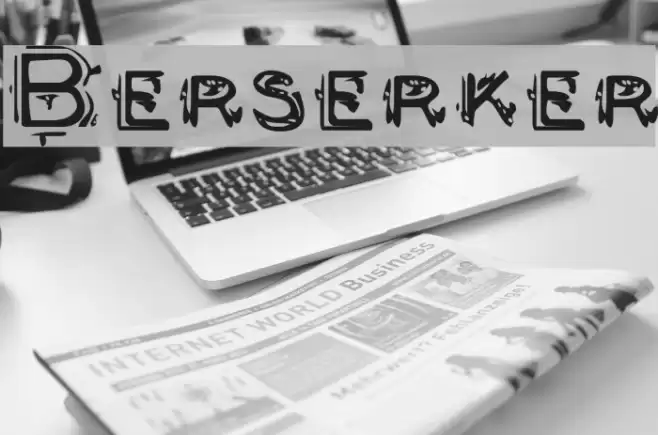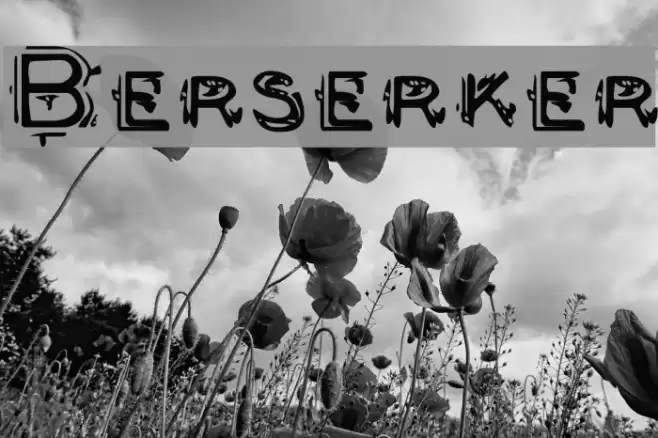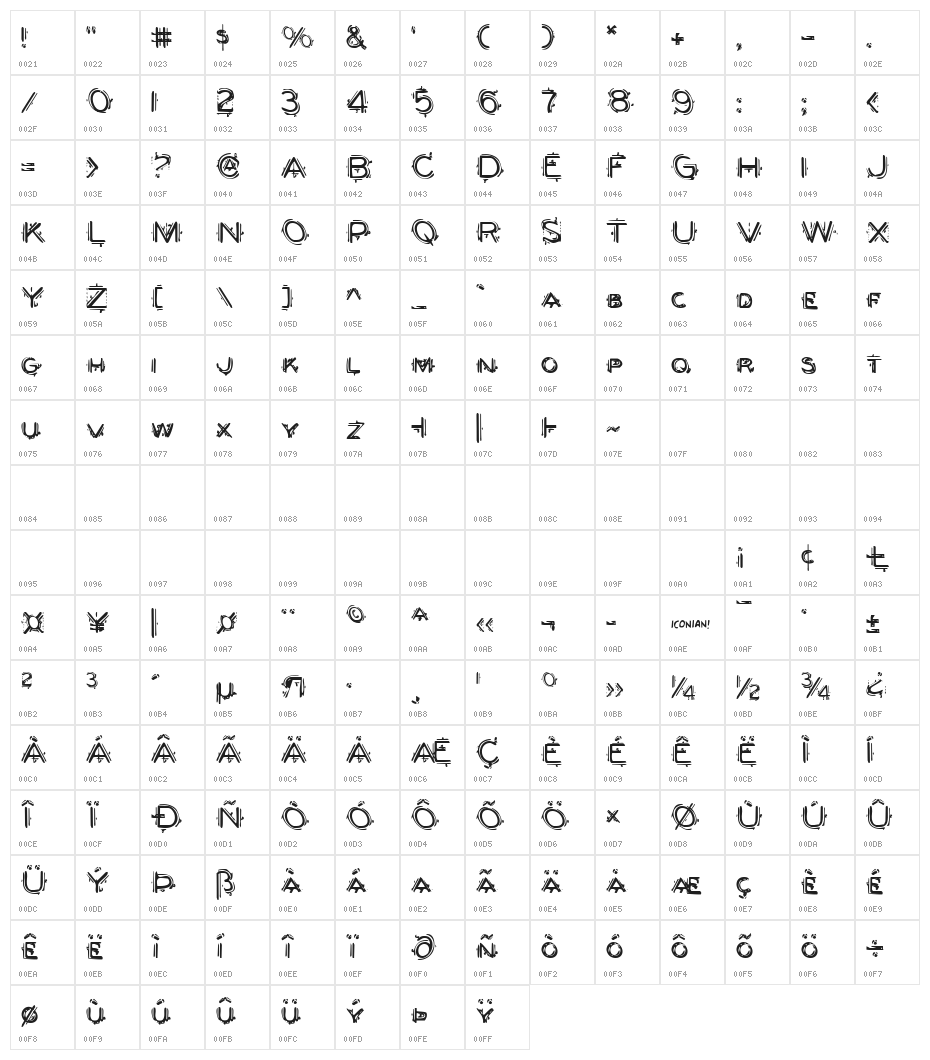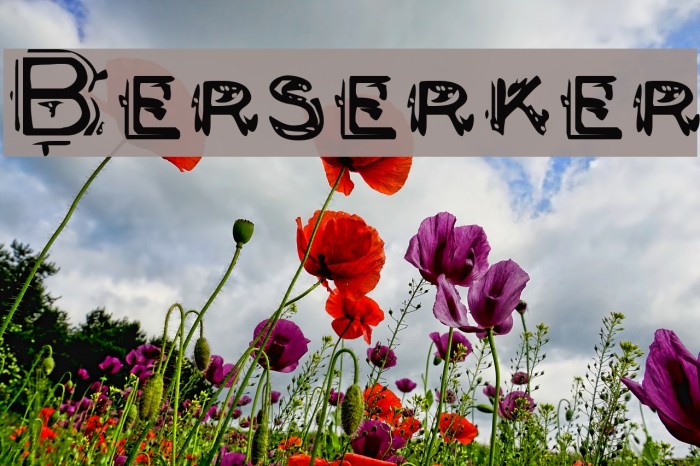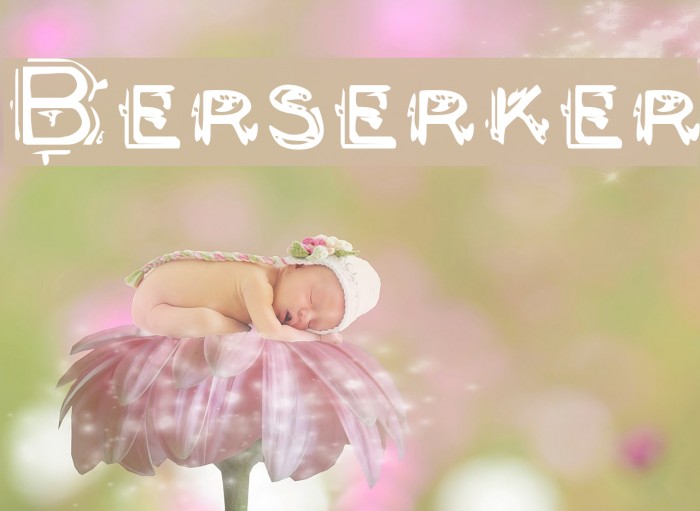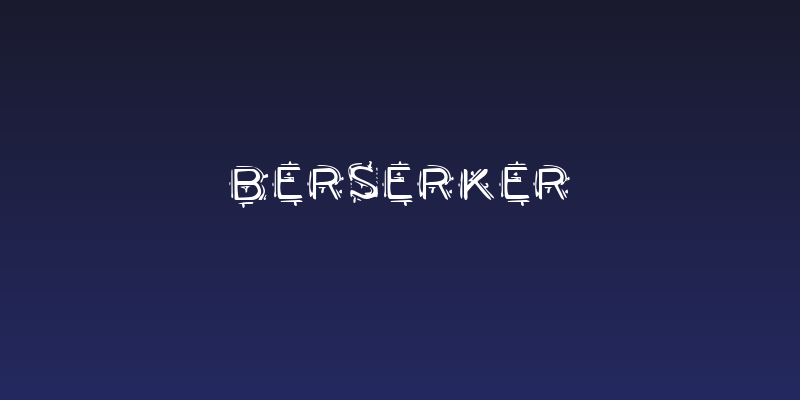
Berserker Font
Berserker Description
This font features a bold and aggressive style with a distressed, grunge-like appearance. The characters are adorned with splatters and irregular edges, giving them a chaotic and rebellious look. The uppercase and lowercase letters maintain a consistent design, with sharp angles and unique embellishments that enhance the overall rugged aesthetic. Numbers and special characters follow the same theme, ensuring a cohesive appearance across all text. This font is ideal for projects that require a strong, impactful visual statement, such as posters, album covers, or video game graphics.
A bold, distressed font with a grunge aesthetic and chaotic embellishments from Distorted Eroded fonts.
- Proposed Projects: Ideal for posters, album covers, video game graphics, and any project needing a strong, rebellious look.